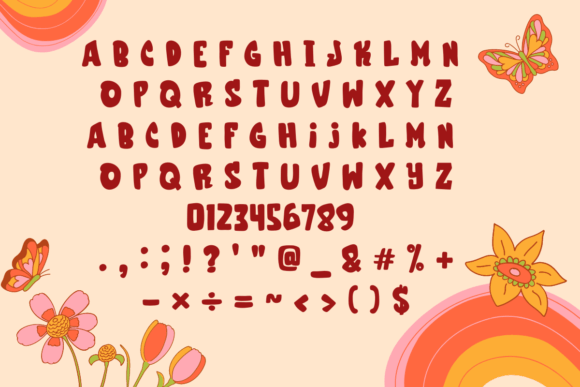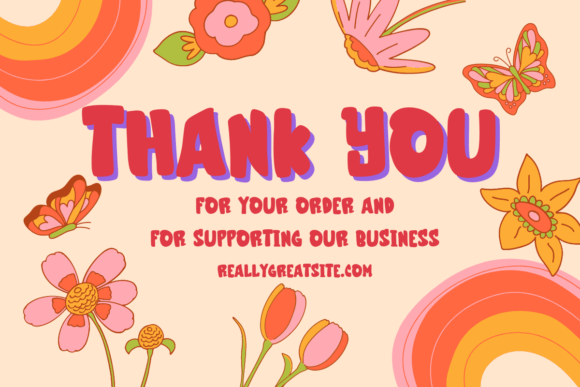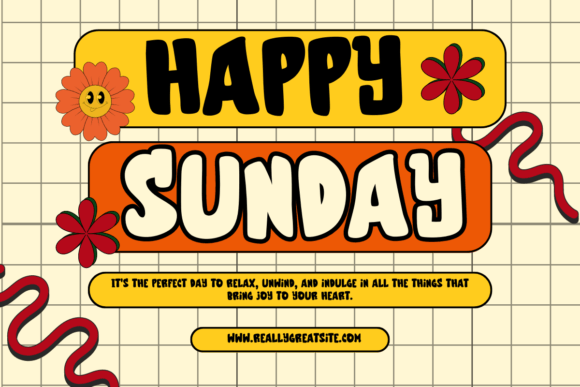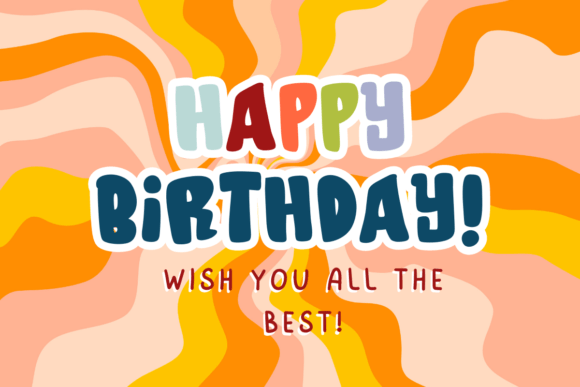
Introducing Absolutely Font: The Bold and Adorable Display Font for Creative Projects
Are you tired of using the same old fonts for your creative projects? Look no further than Absolutely Font, a bold and adorable display font that’s perfect for party decorations, invitations, kid-related projects, scrapbooking, social media, and so much more. In this article, we’ll dive into the features and benefits of Absolutely Font, and explore how you can use it to take your designs to the next level.
What is Absolutely Font?
Absolutely Font is a display font designed to make a statement. Its bold and playful design makes it perfect for eye-catching headlines, titles, and captions. The font is highly legible, even at large sizes, making it ideal for use on posters, banners, and other visual materials. But what really sets Absolutely Font apart is its adorable and charming aesthetic, which is sure to delight both kids and adults alike.
Features of Absolutely Font
- Bold and Playful Design: Absolutely Font features a bold and playful design that’s perfect for making a statement.
- Highly Legible: The font is highly legible, even at large sizes, making it ideal for use on posters, banners, and other visual materials.
- Adorable and Charming Aesthetic: Absolutely Font has an adorable and charming aesthetic that’s sure to delight both kids and adults alike.
- Versatile: The font can be used for a wide range of creative projects, from party decorations and invitations to kid-related projects, scrapbooking, and social media.
Uses for Absolutely Font
Absolutely Font is a versatile font that can be used for a wide range of creative projects. Here are some ideas to get you started:
- Party Decorations: Use Absolutely Font to create eye-catching party decorations, such as banners, signs, and centerpieces.
- Invitations: Create adorable and playful invitations for parties, birthdays, and other special occasions.
- Kid-Related Projects: Use Absolutely Font to create fun and engaging materials for kids, such as worksheets, activity sheets, and coloring pages.
- Scrapbooking: Add a touch of personality to your scrapbooking projects with Absolutely Font.
- Social Media: Use Absolutely Font to create eye-catching social media graphics, such as Facebook posts, Instagram captions, and Twitter headers.
Benefits of Using Absolutely Font
There are many benefits to using Absolutely Font for your creative projects. Here are a few:
- Easy to Read: Absolutely Font is highly legible, making it easy for readers to quickly understand your message.
- Visually Appealing: The font’s bold and playful design makes it visually appealing and engaging.
- Versatile: Absolutely Font can be used for a wide range of creative projects, making it a great addition to your font library.
- Time-Saving: With Absolutely Font, you can create professional-looking materials in no time, saving you time and effort.
Tips for Using Absolutely Font
Here are a few tips for using Absolutely Font effectively:
- Use it for Headlines: Absolutely Font is perfect for headlines and titles, where you want to make a bold statement.
- Experiment with Colors: Try pairing Absolutely Font with different colors to create a unique and eye-catching look.
- Mix and Match: Combine Absolutely Font with other fonts to create a visually appealing and interesting design.
- Have Fun: Most importantly, have fun with Absolutely Font! Its playful design makes it perfect for creative projects.
In conclusion, Absolutely Font is a bold and adorable display font that’s perfect for creative projects. Its highly legible design, adorable aesthetic, and versatility make it a great addition to your font library. With Absolutely Font, you can create professional-looking materials in no time, saving you time and effort. So why not give it a try and see what amazing creations you can come up with?